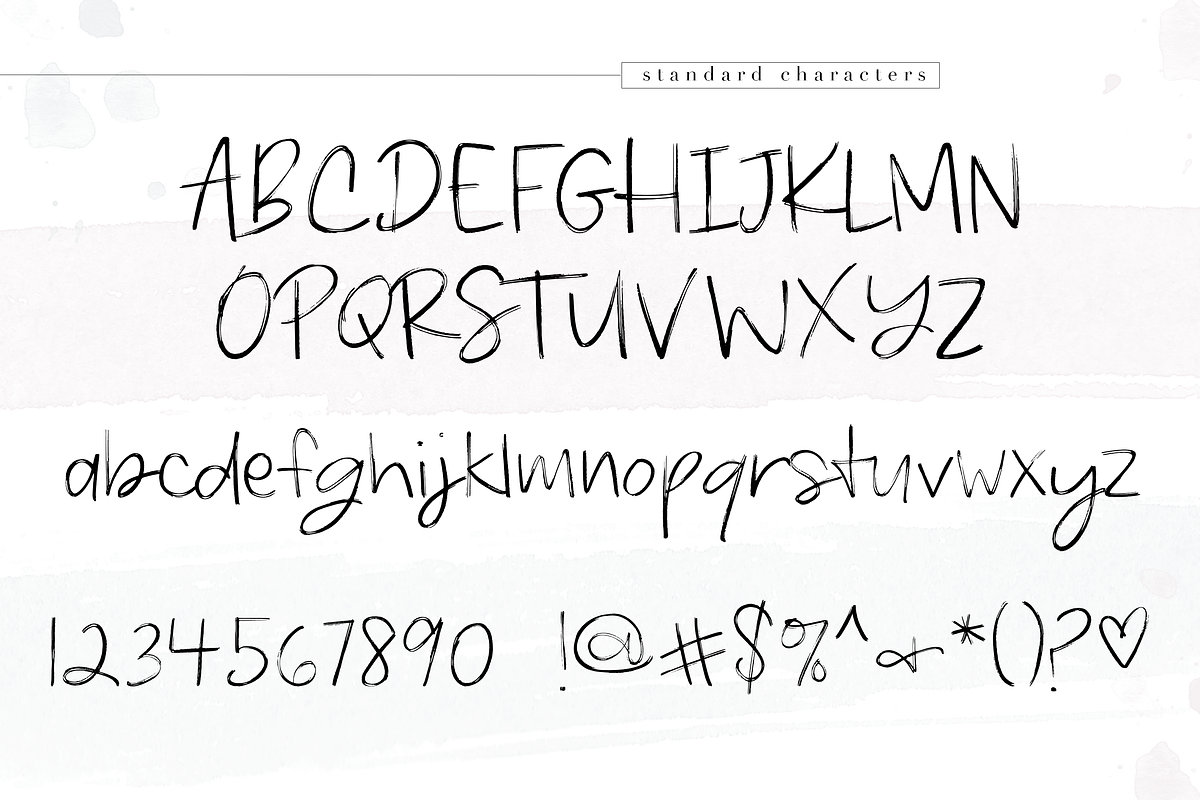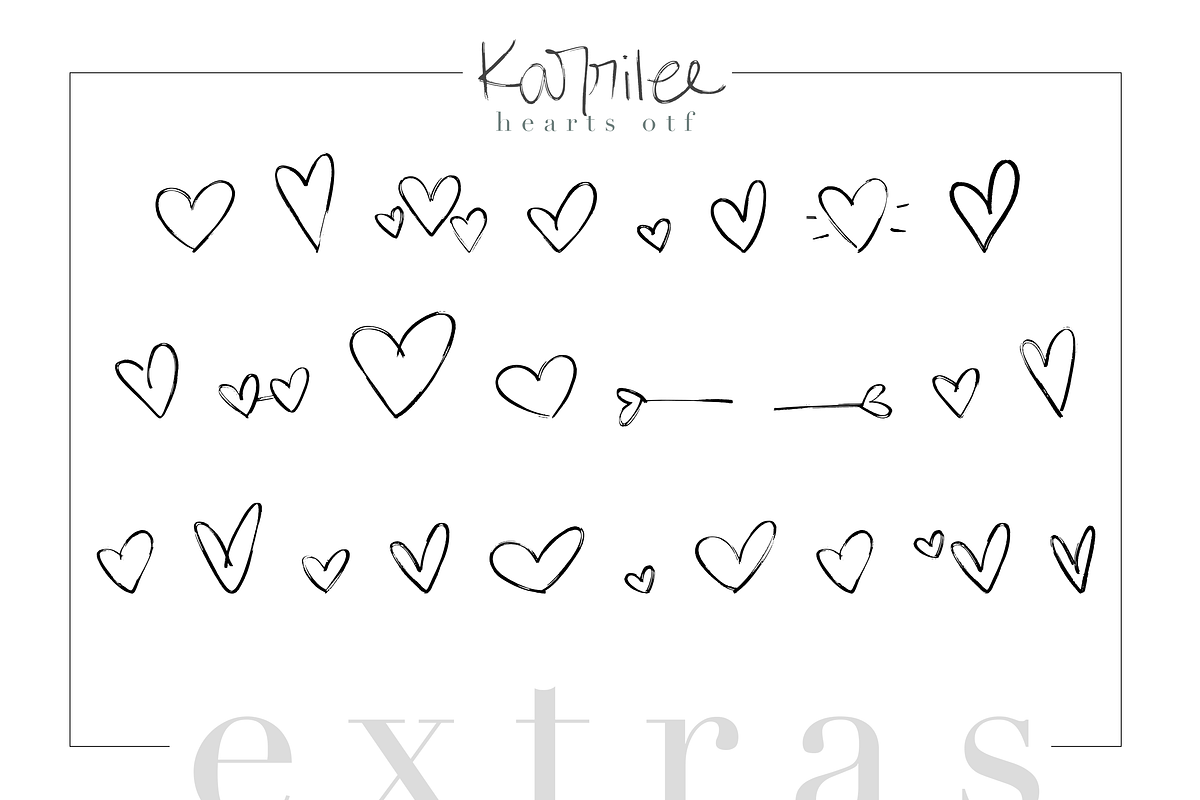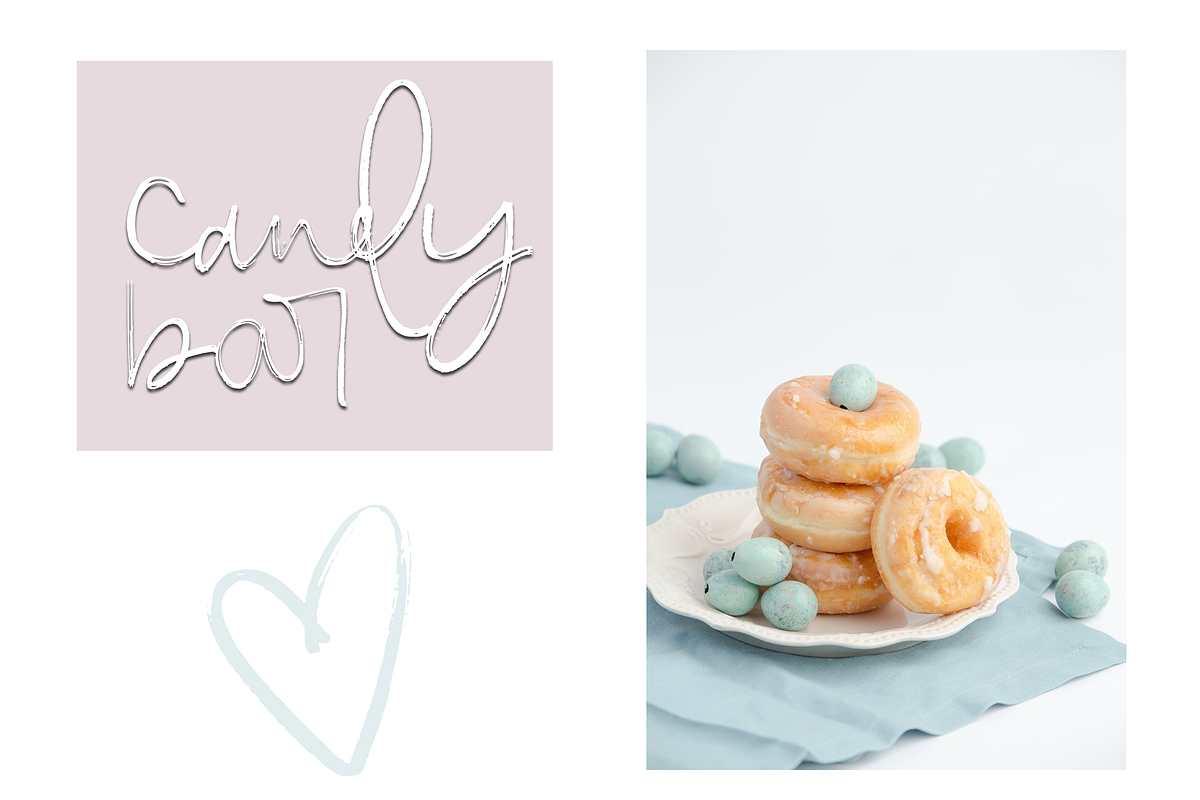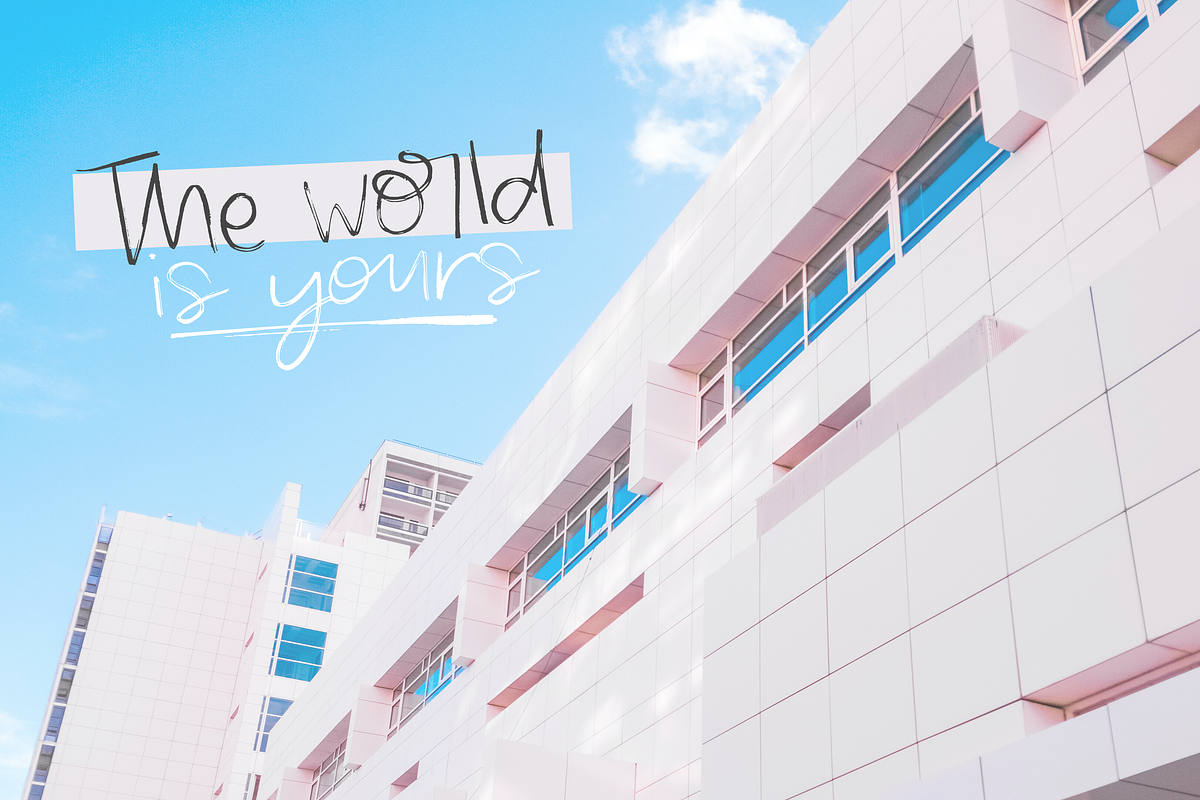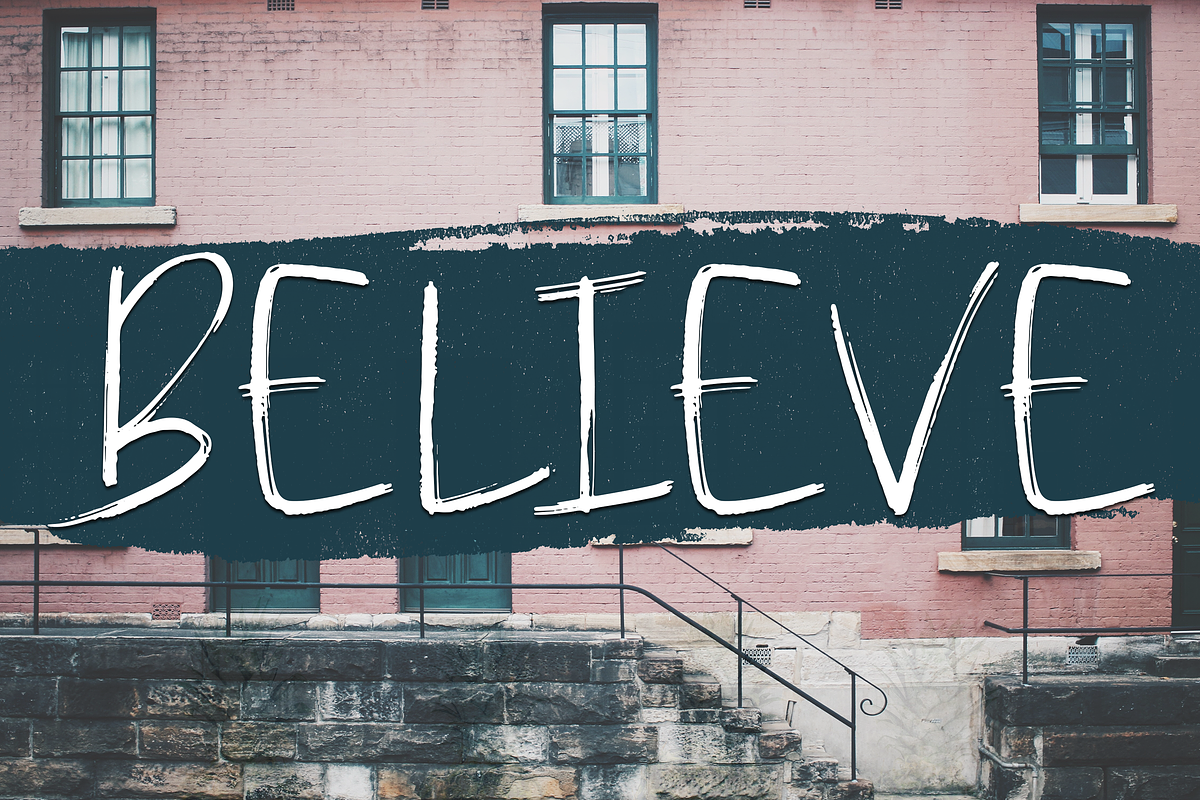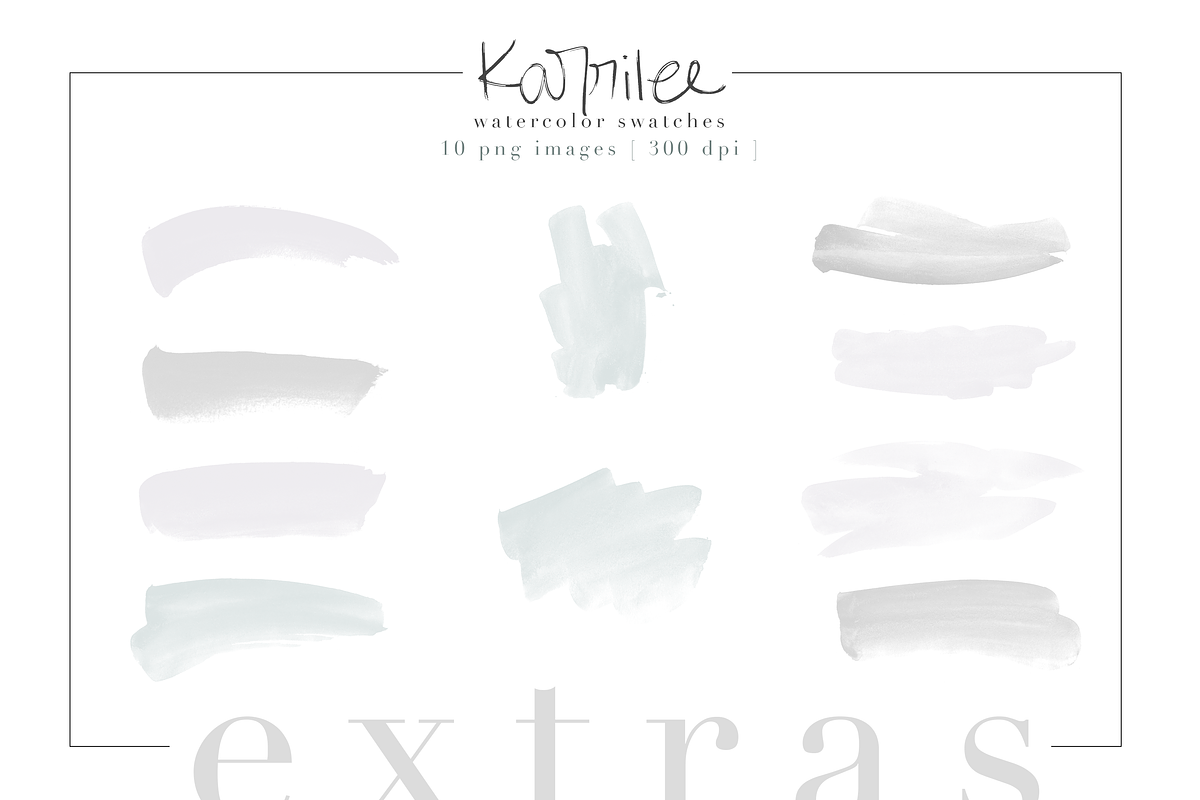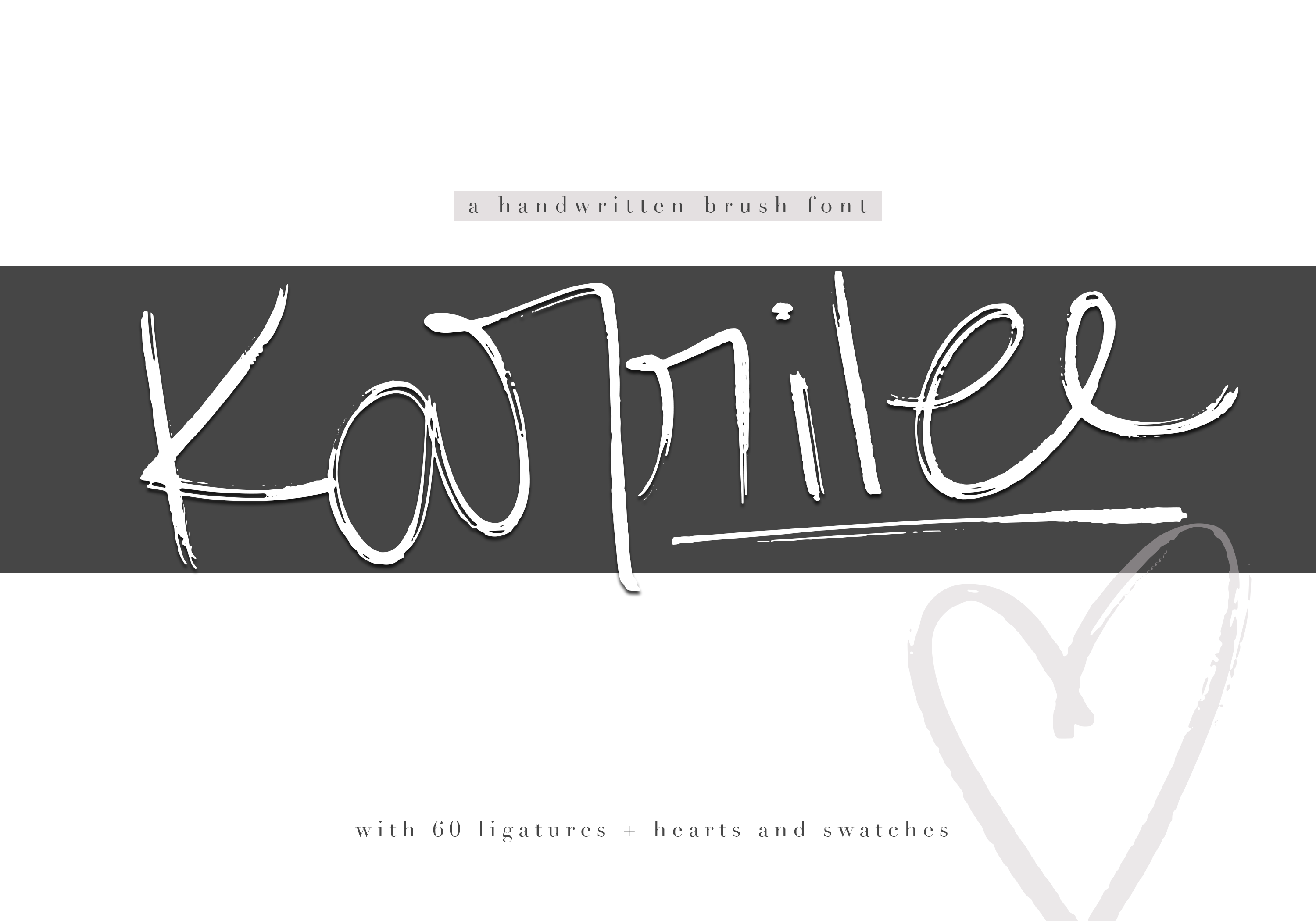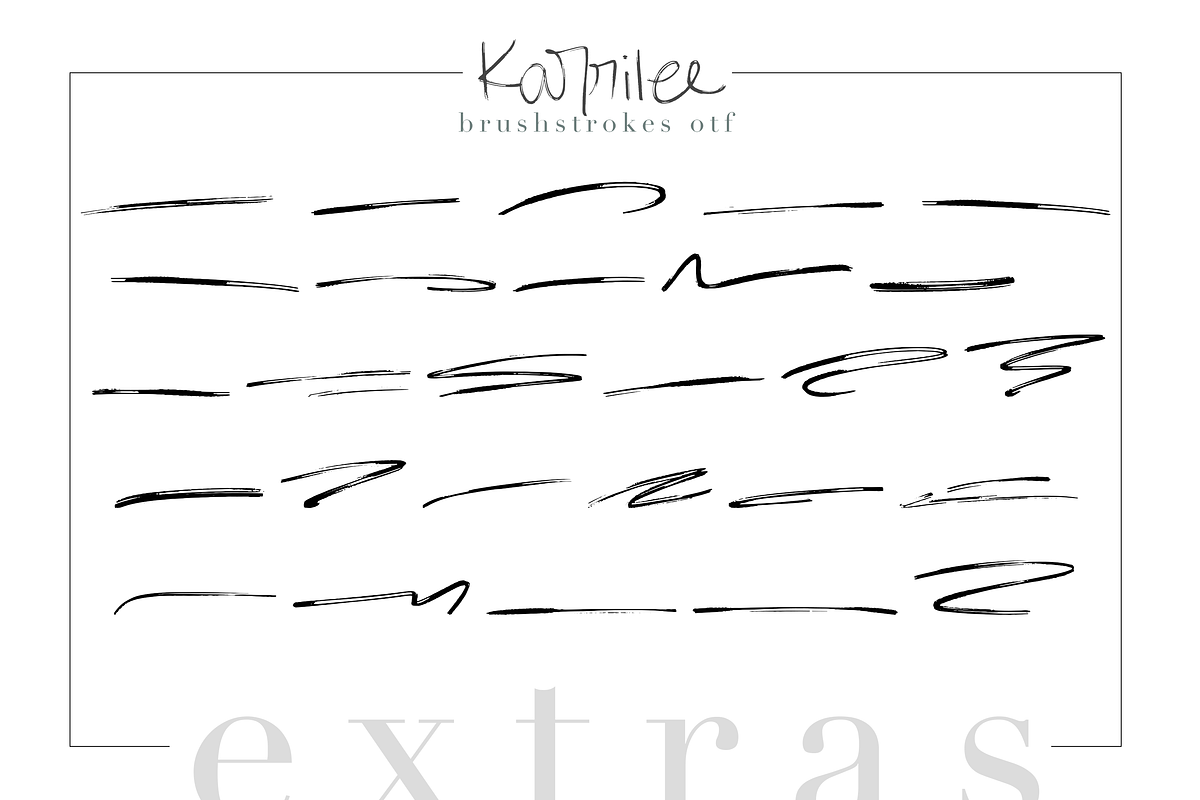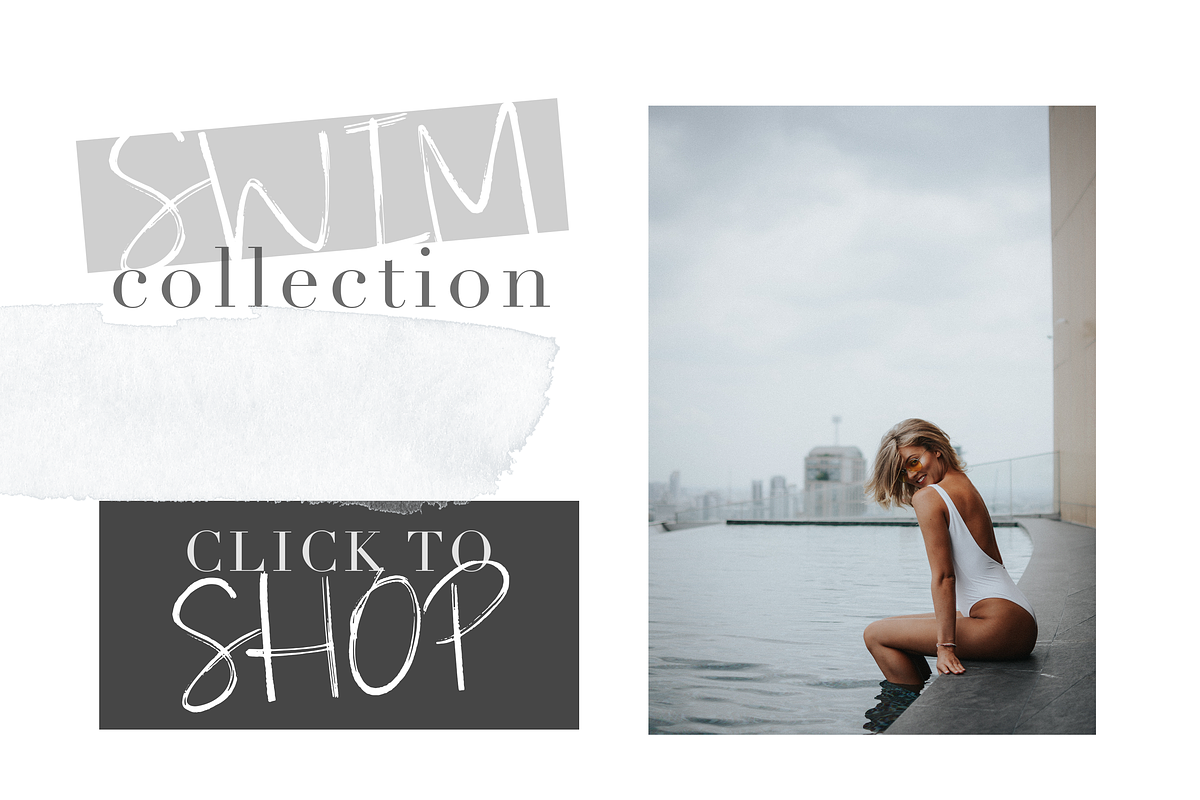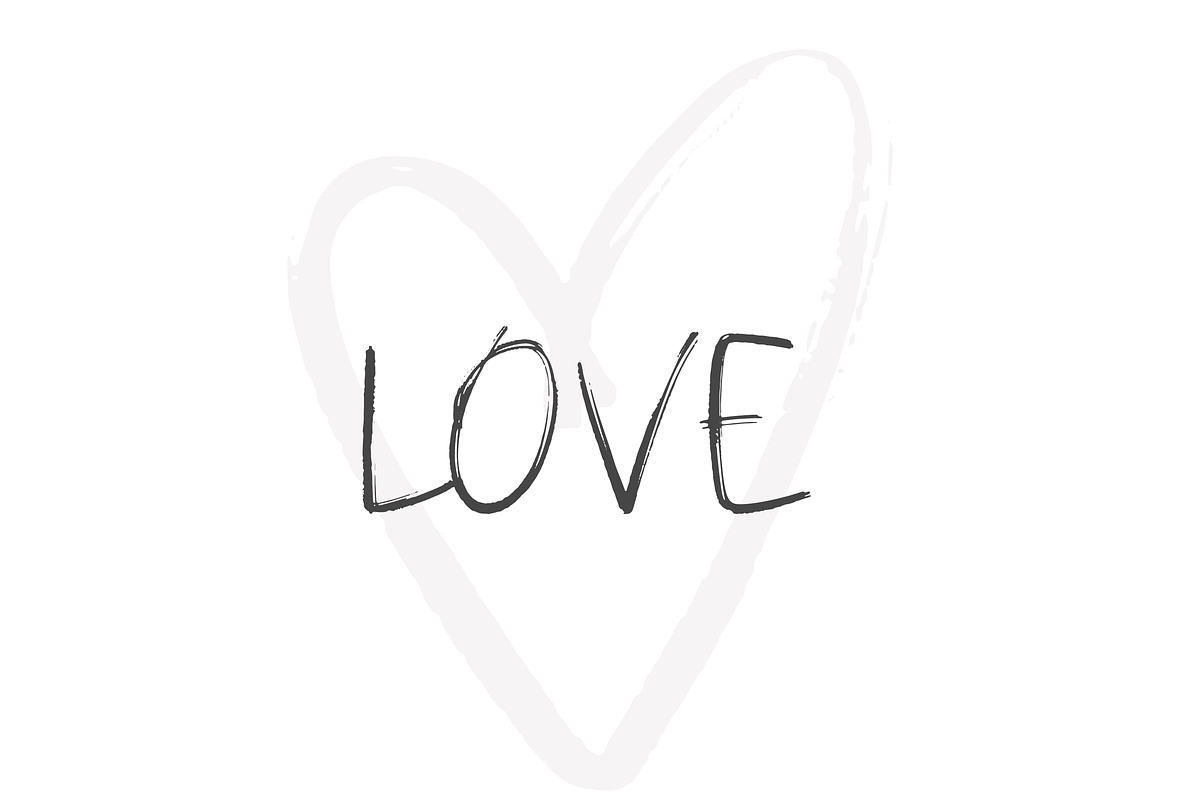
Karrilee - Handwritten Brush Font
Karrilee is a chic brushed font! It was carefully handmade to look and feel as if you are writing with a brush pen! It is especially perfect for quotes and branding.
There are a ton of ligatures included - simply just turn on your standard and discretionary ligatures and you are ready to go! The letters will change as you type to produce an authentic, handwritten feel.
-- Karrilee Swatches OTF Use the letters A-Z to access underling brushstroke swatches.
-- Karrilee Hearts OTF Use the letters A-Z to access hand brushed hearts.
-- Karrilee Watercolor Kit Ten 300dpi png watercolor brushstrokes and swatches in a dusty pink, grey and pale green. The colors behind the inspiration of this font!